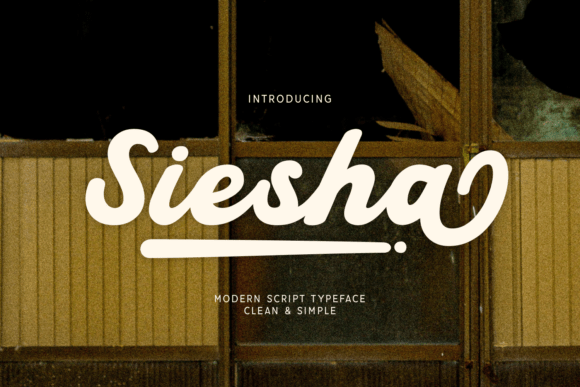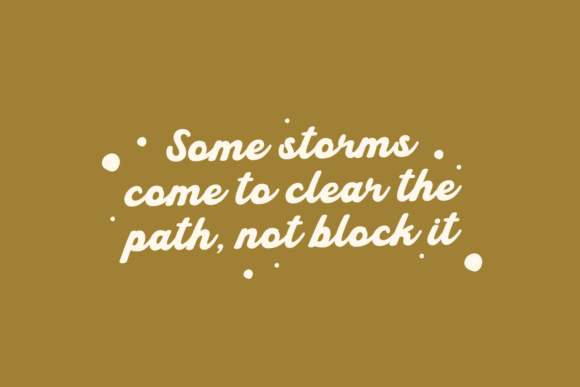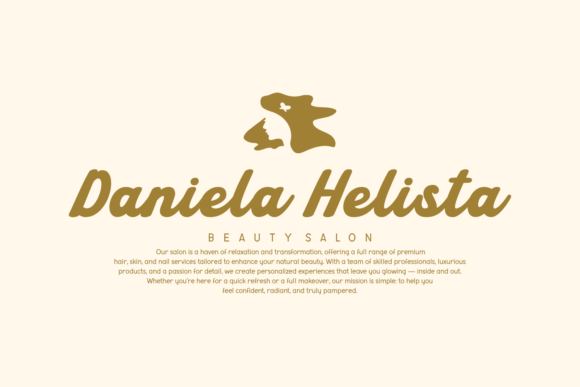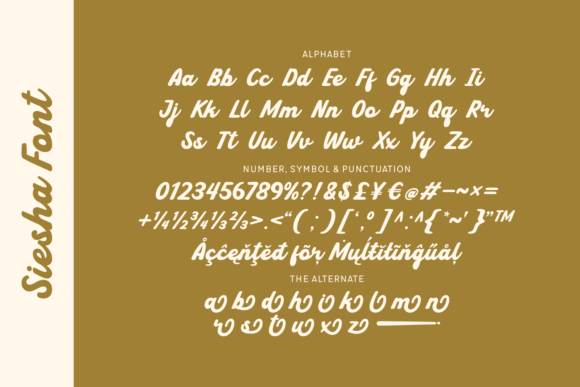
Siesha Font: Bold Modern Script for Logos & Branding Design
About the Siesha Font
From logos to headlines, the Siesha Font is the perfect choice for making a lasting impression. Siesha is a bold, modern script font with a clean and minimal edge. Its strong brush-like strokes and rounded terminals make it ideal for logos, apparel designs, product packaging, and signage. With a built-in underline for added emphasis, Siesha balances simplicity and punchy personality in one cohesive style.